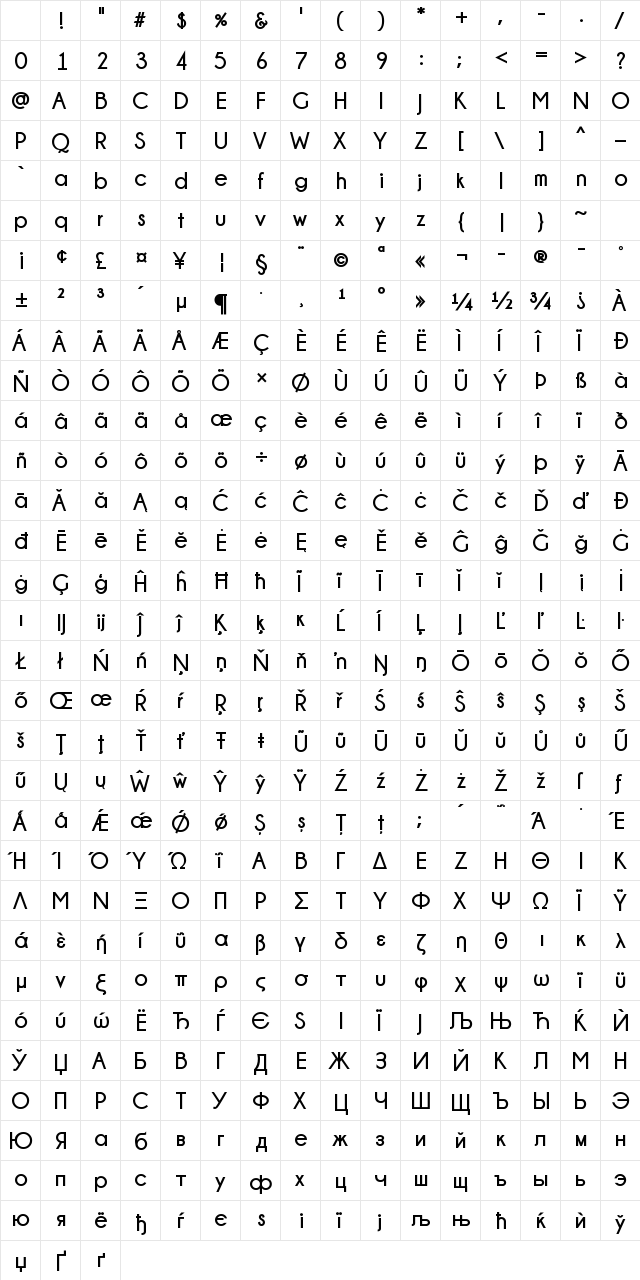
Complete Champagne & Limousines Bold glyph index. Displaying only characters natively supported by Champagne & Limousines Bold font.
Champagne & Limousines is a composed and adaptable typeface that performs quietly and consistently across a wide range of design contexts. Its bold stroke weight gives it real presence on the page.